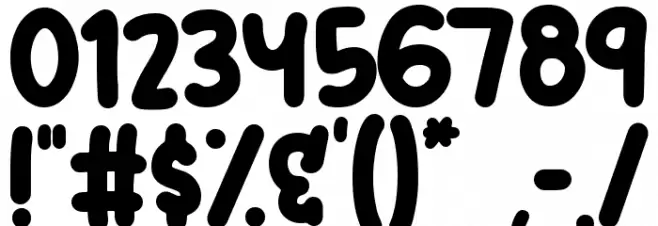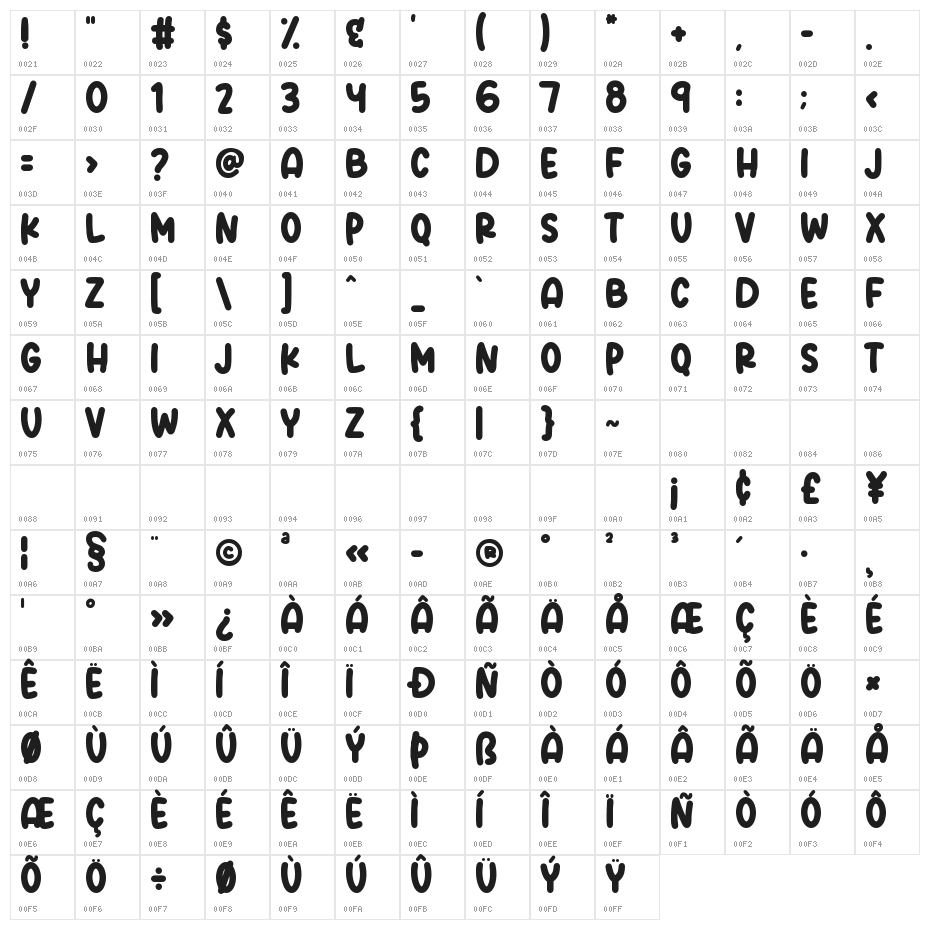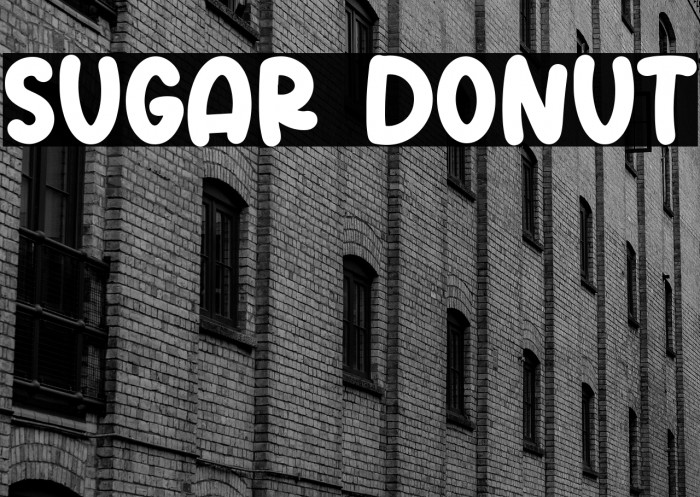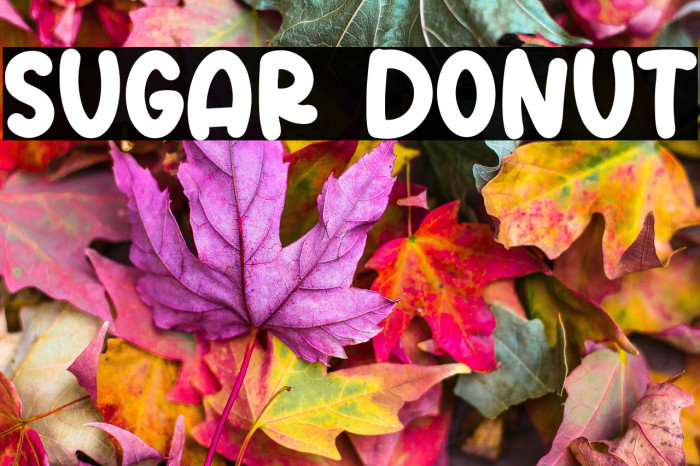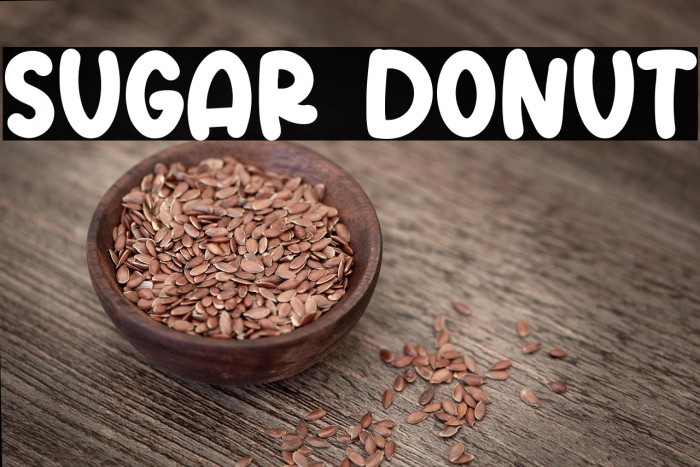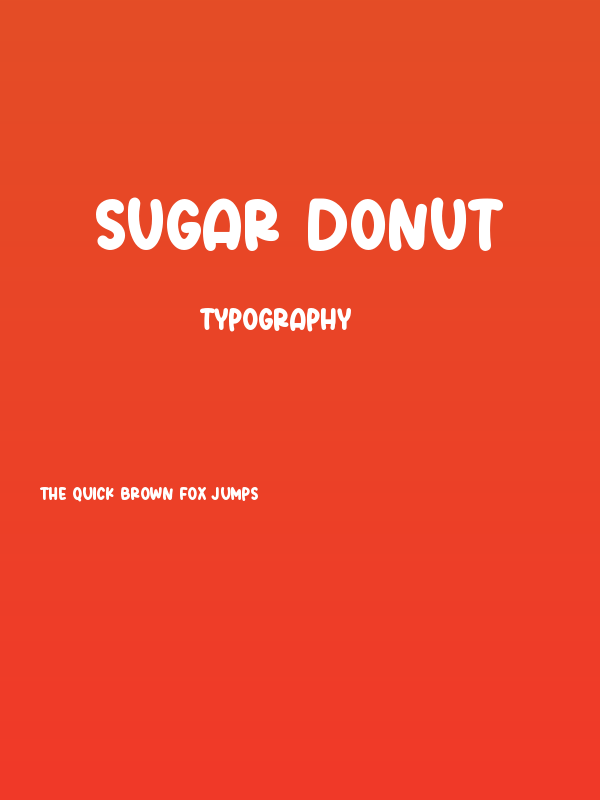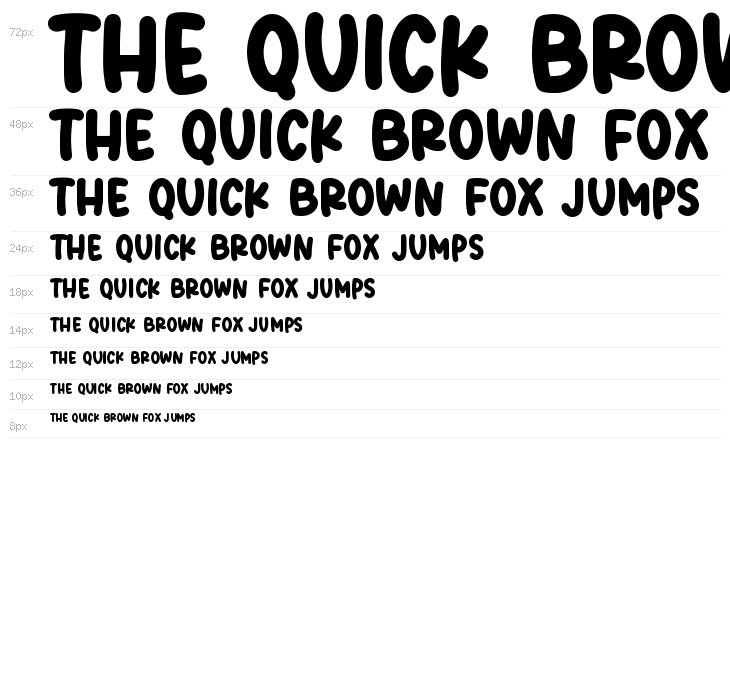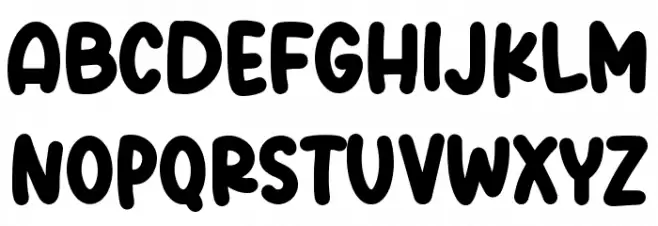
Sugar Donut Font
Sugar Donut Description
This playful and bold font features rounded, bubbly characters that exude a sense of fun and whimsy. The letters are thick and uniform, with a consistent stroke width that gives them a strong presence. The overall design is reminiscent of hand-drawn lettering, with a casual and approachable feel. The font includes both uppercase and lowercase letters, numerals, and a variety of special characters, making it versatile for different design needs. Its smooth curves and friendly appearance make it ideal for projects that aim to convey a sense of joy and creativity.
Overall StylePlayful, Whimsical
Proposed ProjectsIdeal for children's books, playful branding, party invitations, and creative posters.